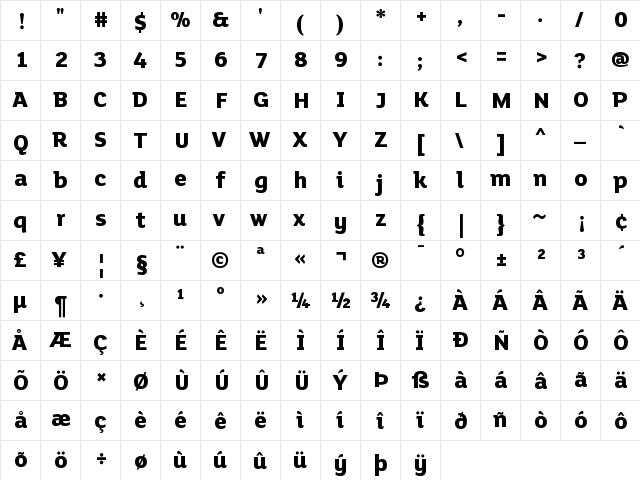
FS Lola ExtraBold Regular
Design Context for FS Lola ExtraBold Typeface
FS Lola ExtraBold offers clean, dependable letterforms without strong stylistic allegiance, making it a practical choice for designers who need flexibility. The heavy weight commands attention and anchors typographic hierarchies.
Pro Tip: Use FS Lola ExtraBold in both headline and body roles to test its range before committing to a single application.